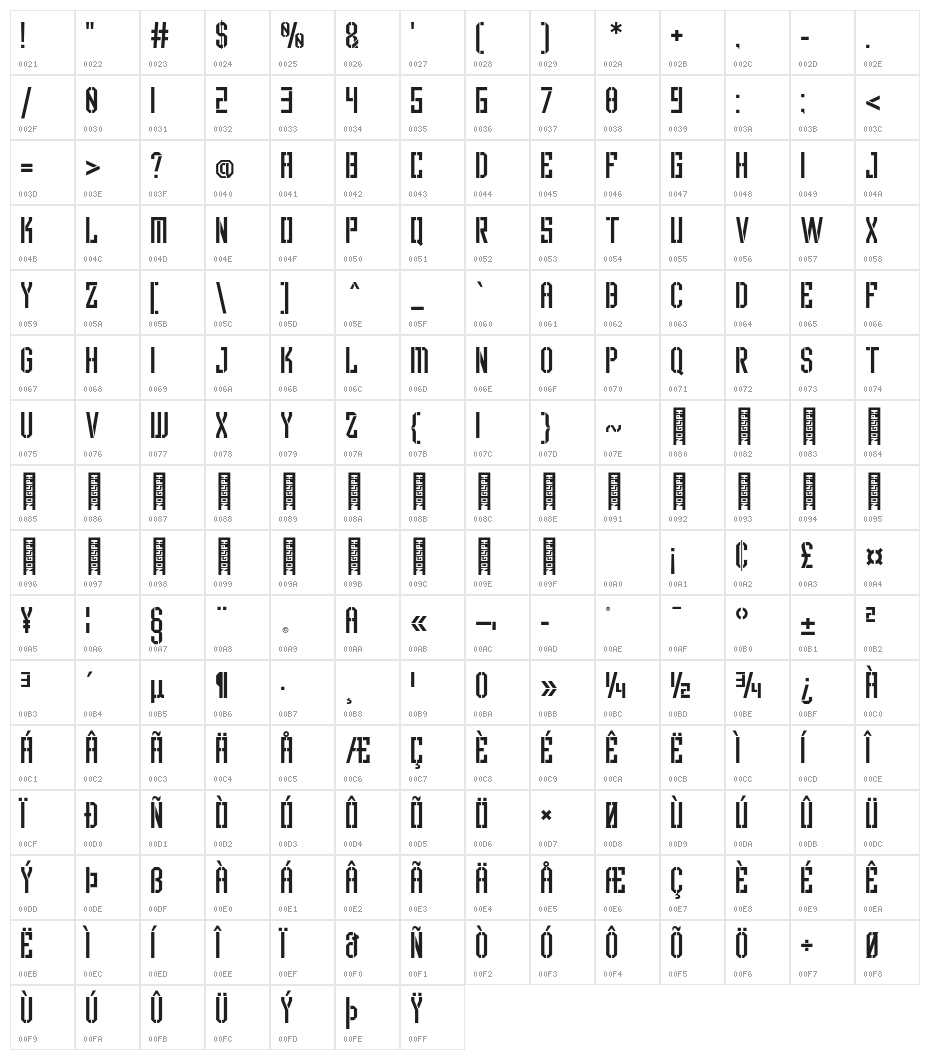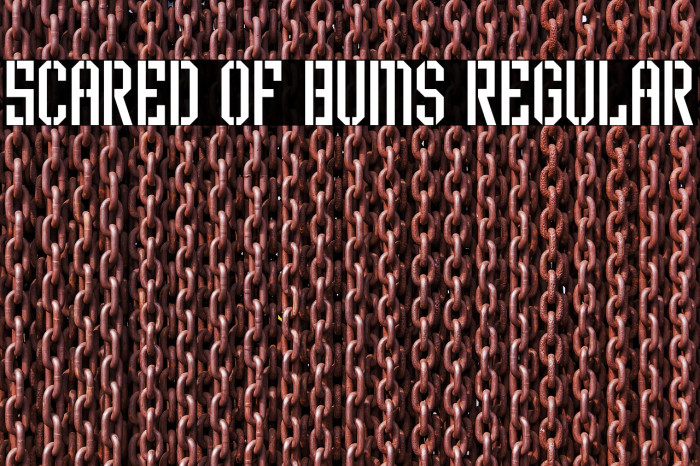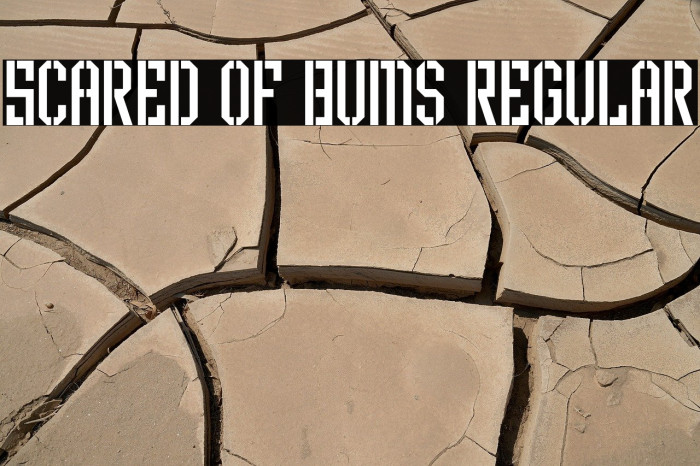
Scared of Bums Regular Font
Scared of Bums Regular Description
This font features a bold, geometric design with a strong emphasis on vertical lines and sharp angles. The characters are constructed with a stencil-like appearance, giving them a modern and industrial feel. The uppercase letters are particularly striking, with a uniform height and width that creates a cohesive and structured look. The numbers and special characters maintain this aesthetic, ensuring consistency across all elements. The font's unique style makes it stand out, with a distinct personality that is both edgy and contemporary.
| Proposed Projects | Ideal for branding, posters, and signage where a strong, modern impact is desired. |